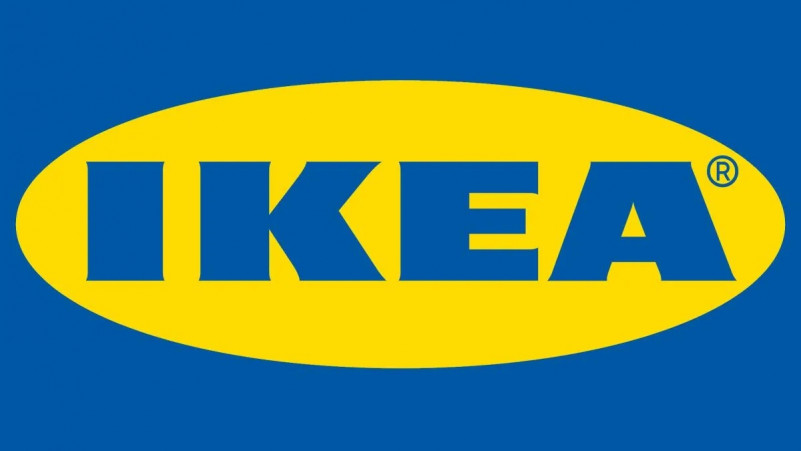
IKEA Logo Font
IKEA is a Sweden company that designs and sells ready-to-assemble furniture such as beds, desks, bookshelves etc. The company name “IKEA” originates from three initials, namely, Ingvar Kamprad, the founder’s name, Elmtarvd, the farm where the founder grow up, and Agunnaryd, the founder’s home village. Due to its unique stylish design and affordable price, the Ikea furniture is very popular among young people.
The IKEA logo was designed using Ikea Sans by Robin Nicholas, a font similar to seriffed Futura. The Ikea Sans is not available for the public. A free font that you may use instead would be Futurapress.